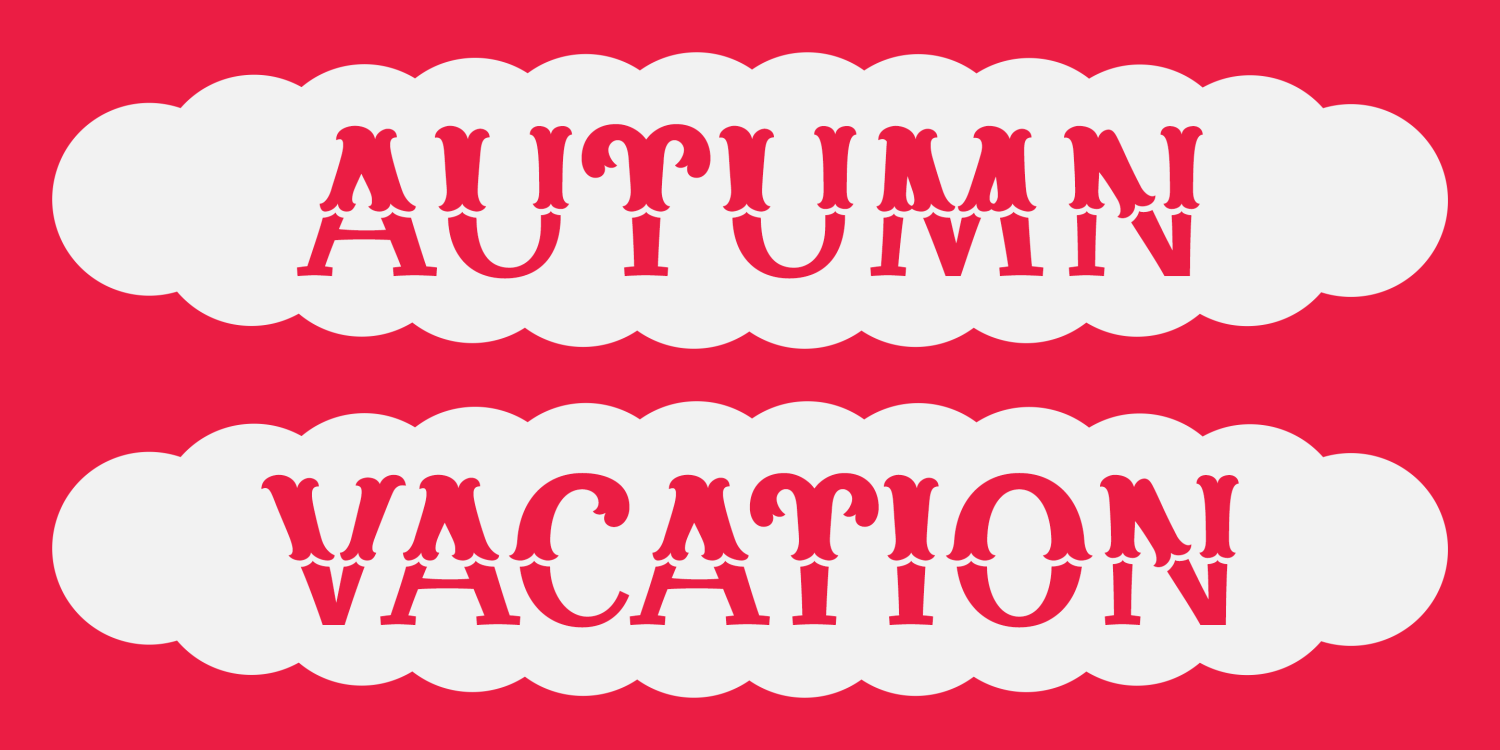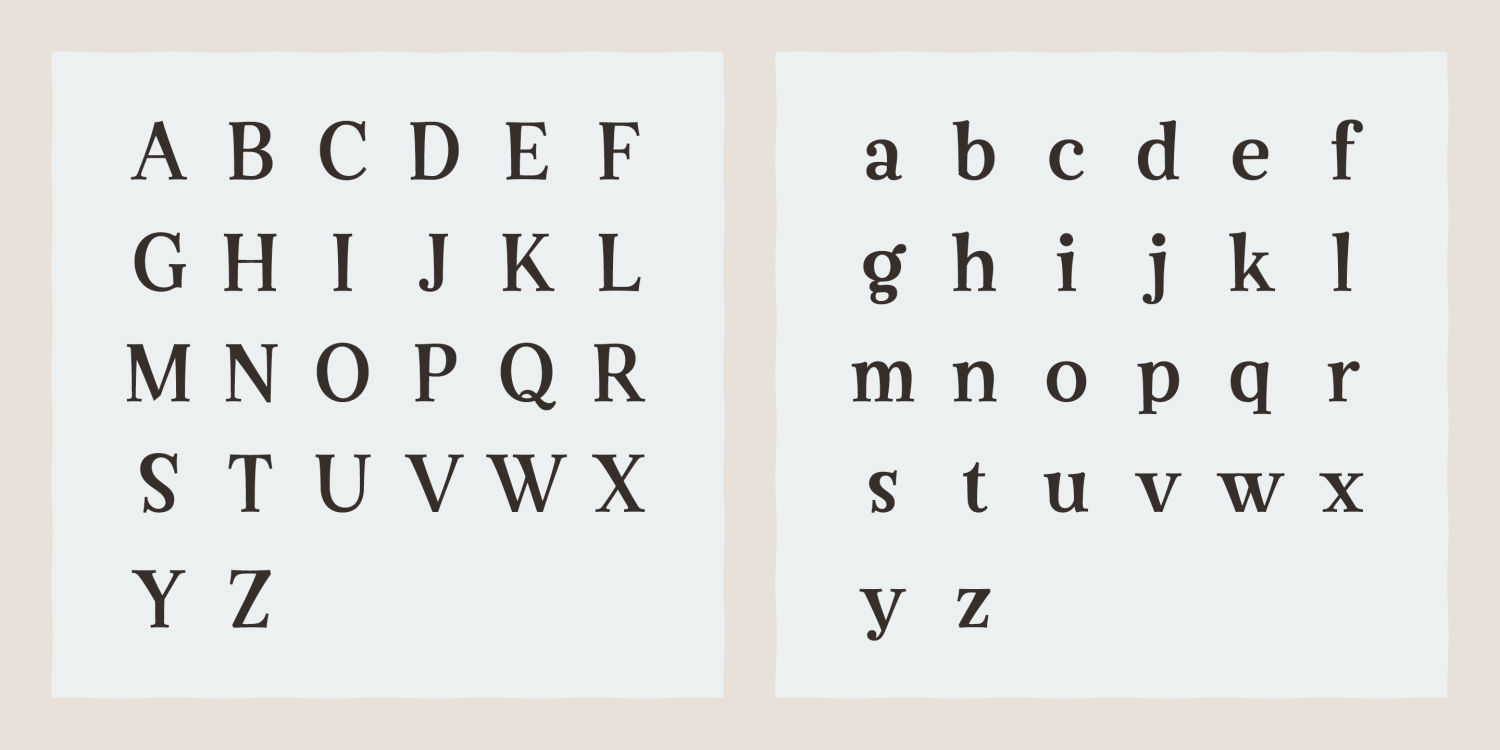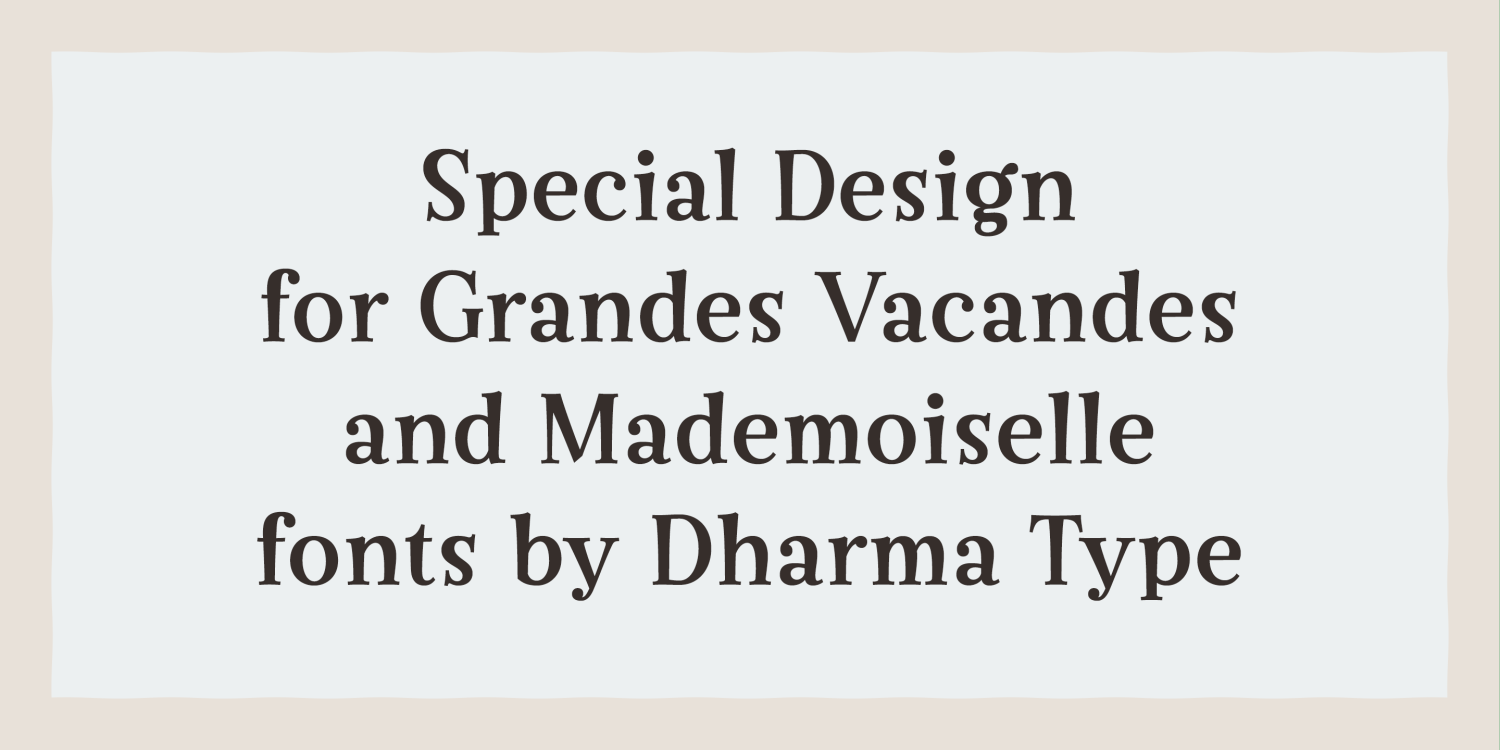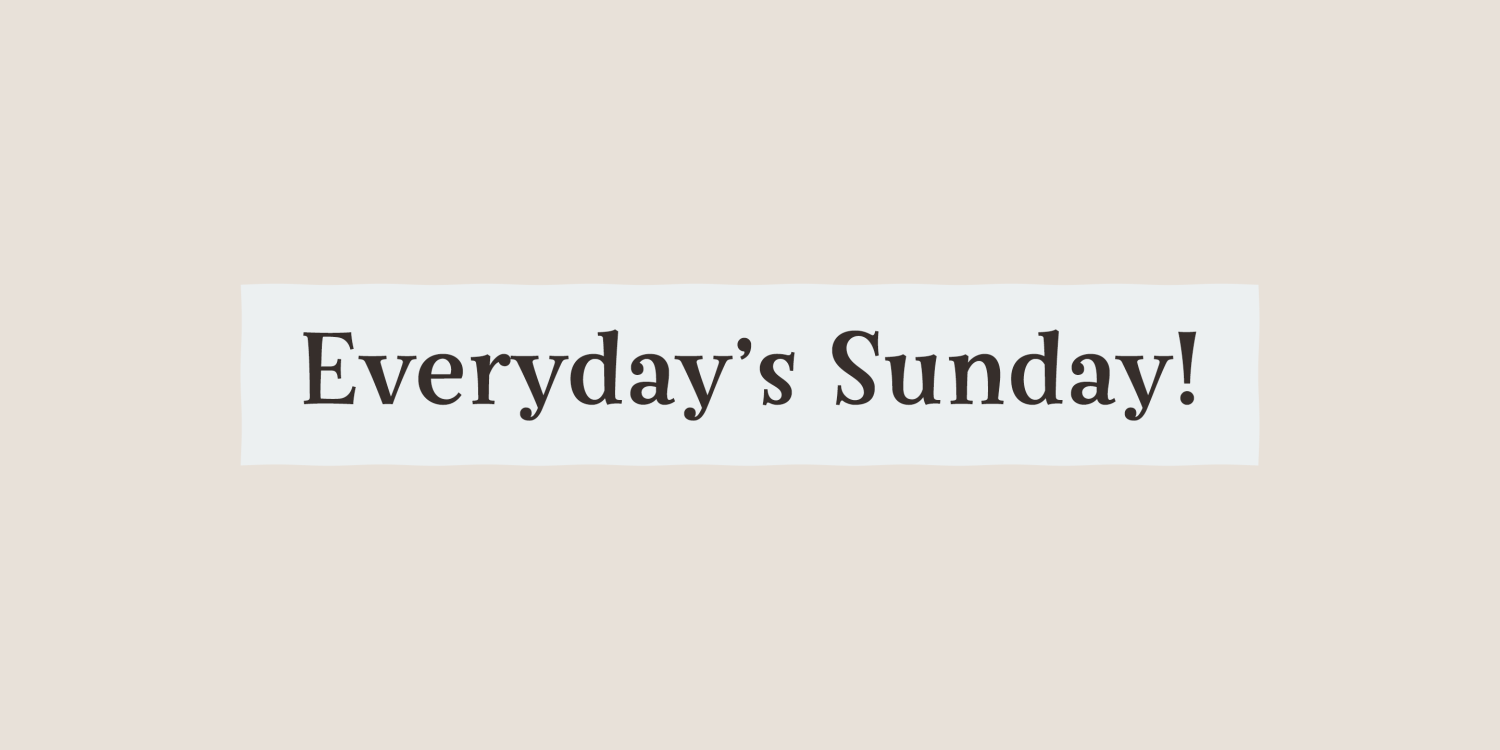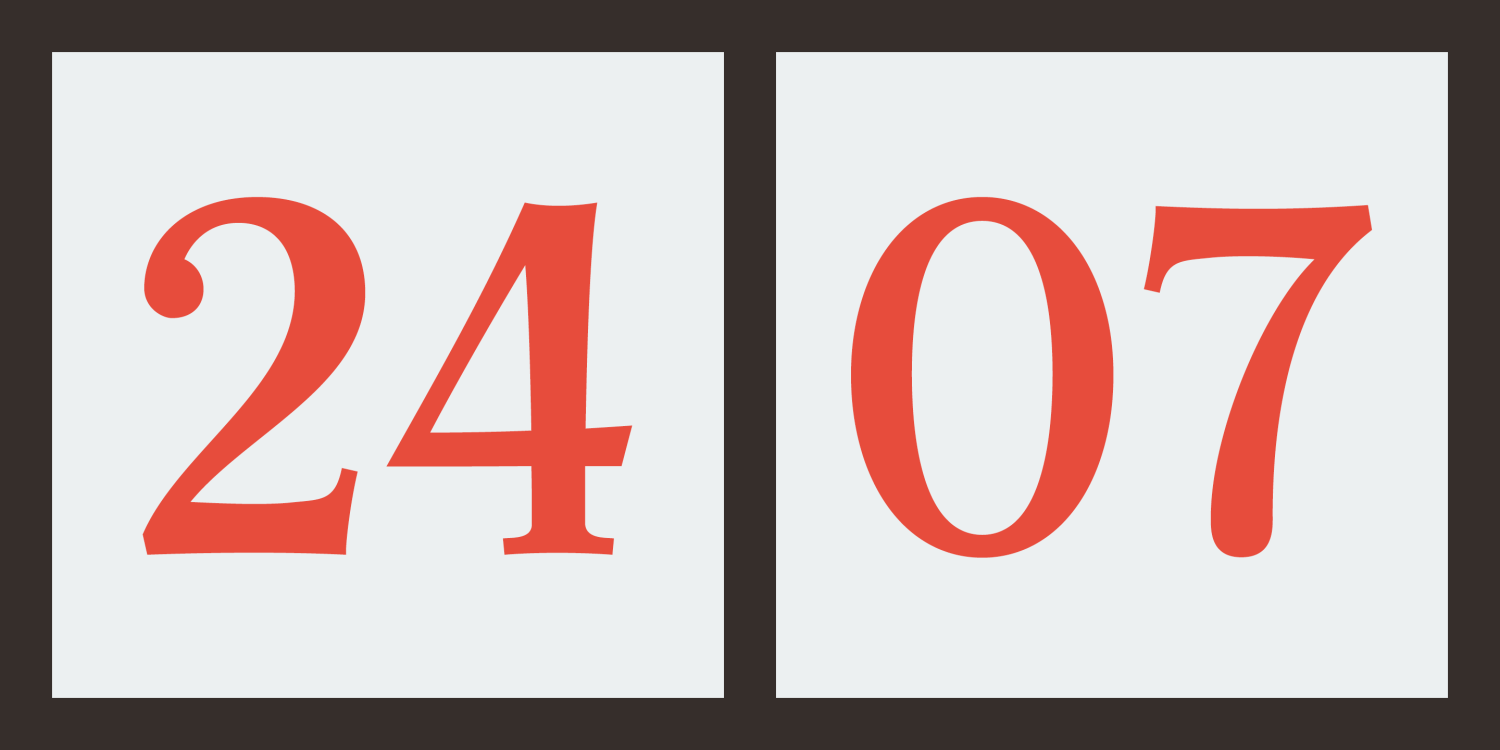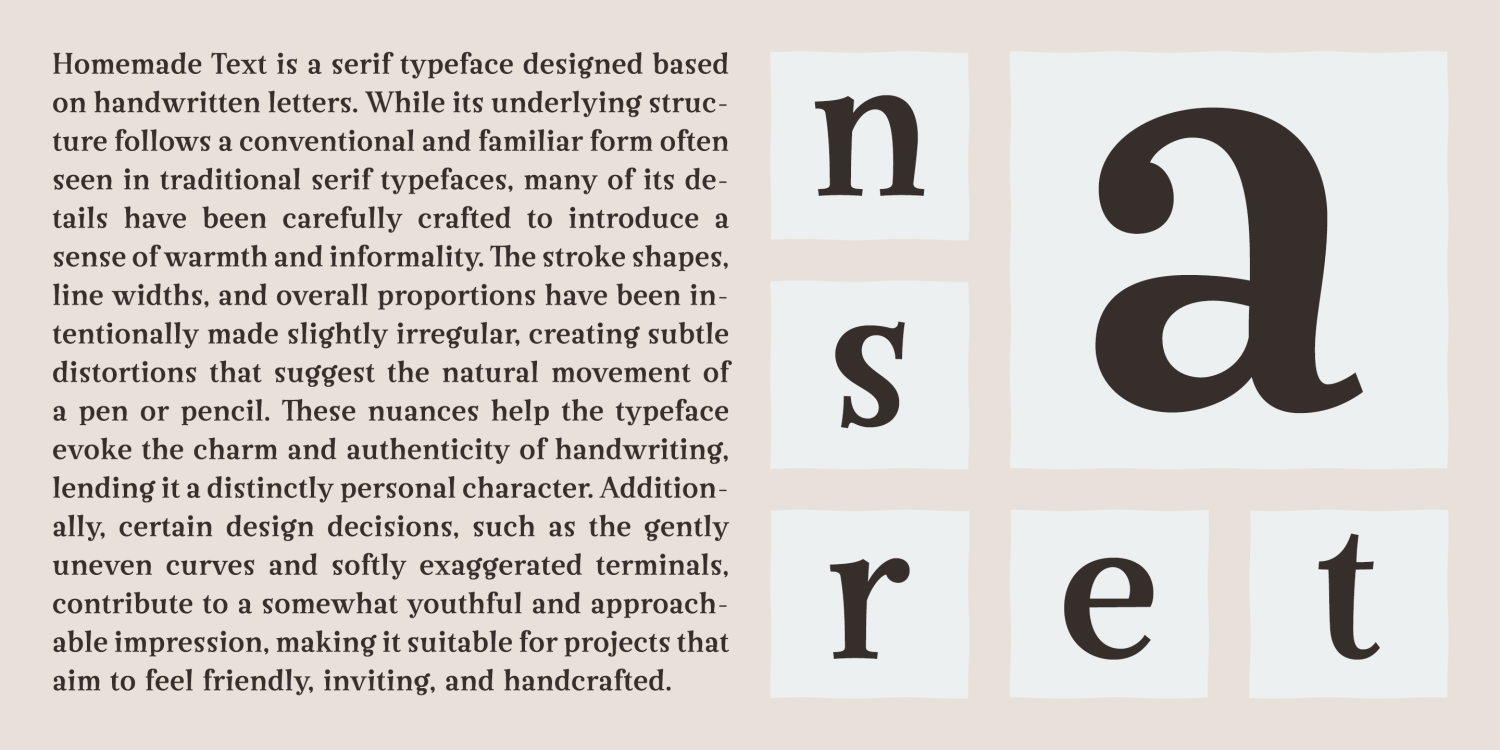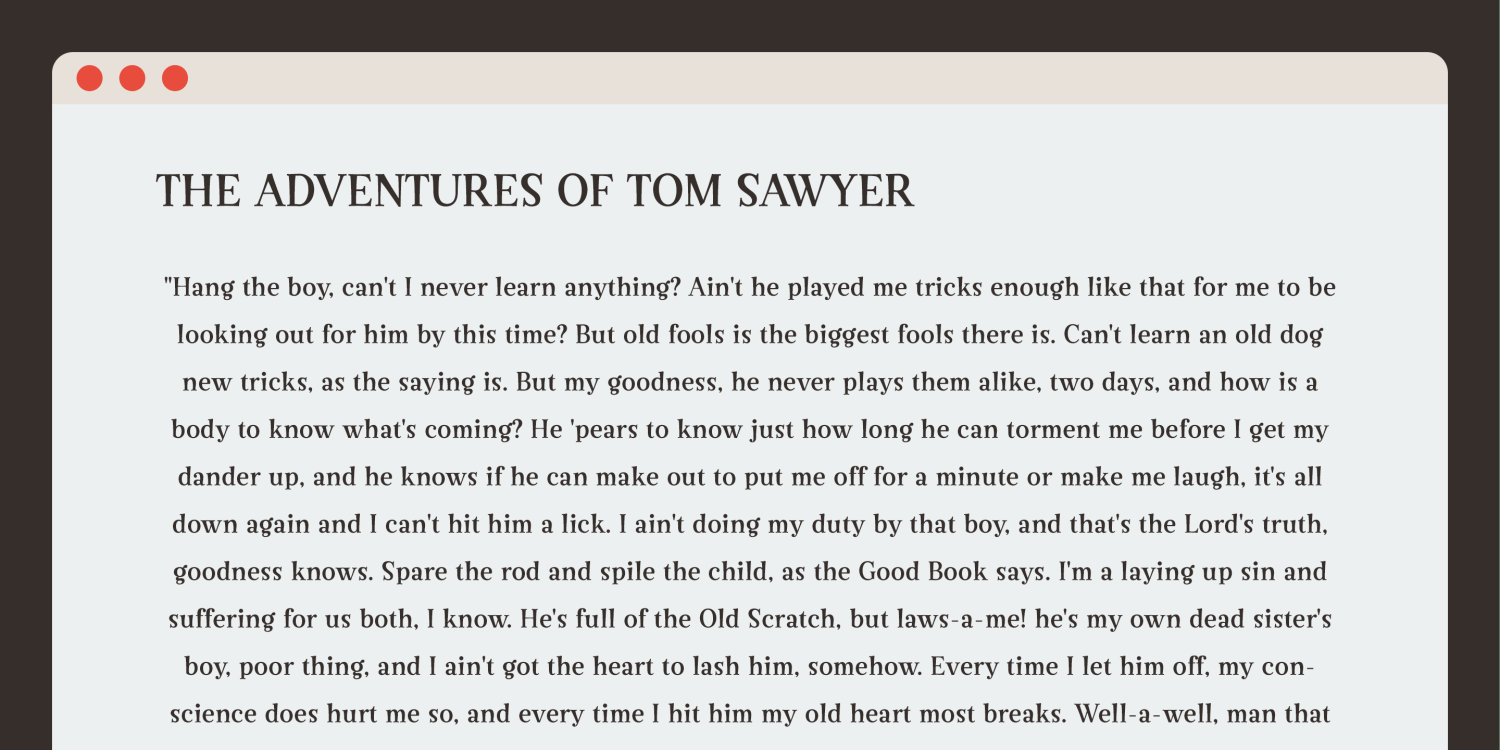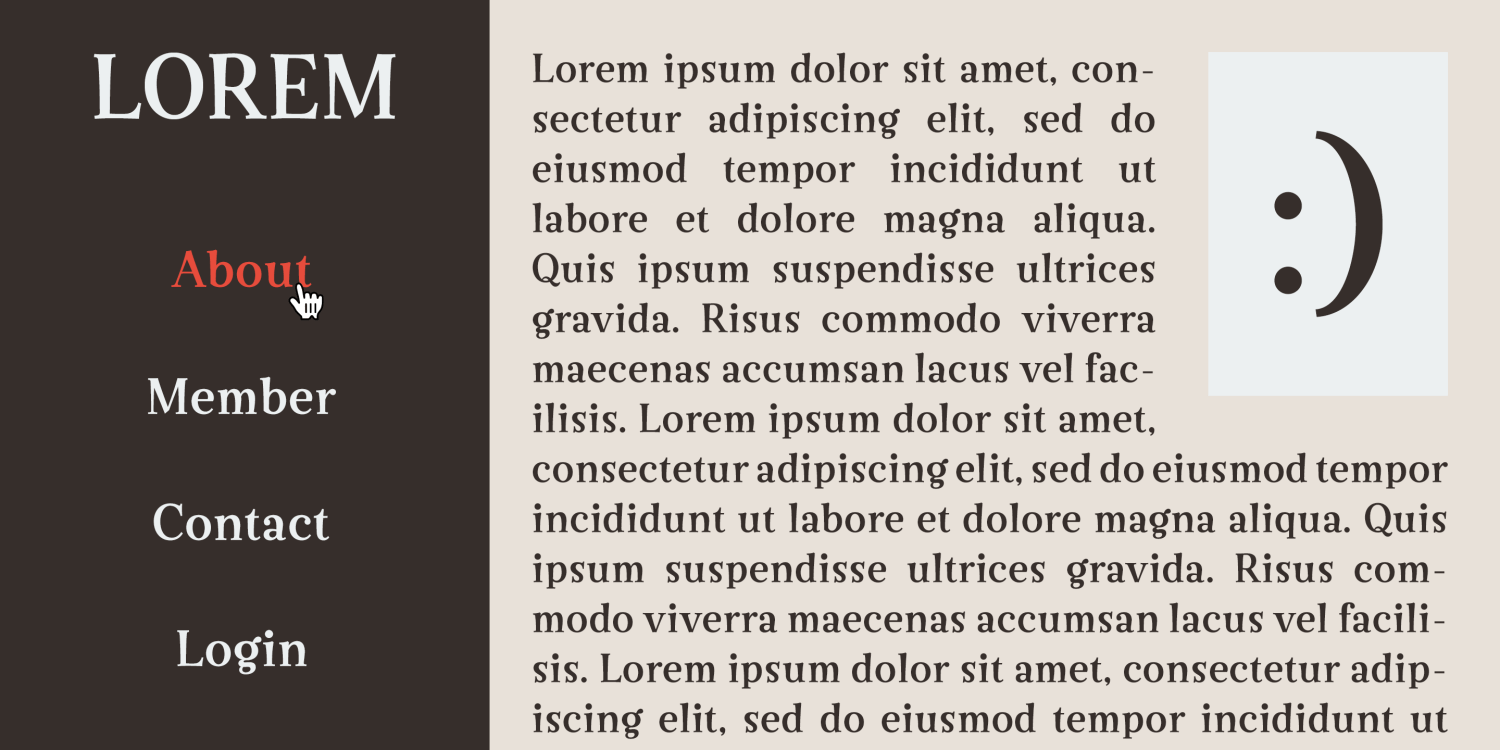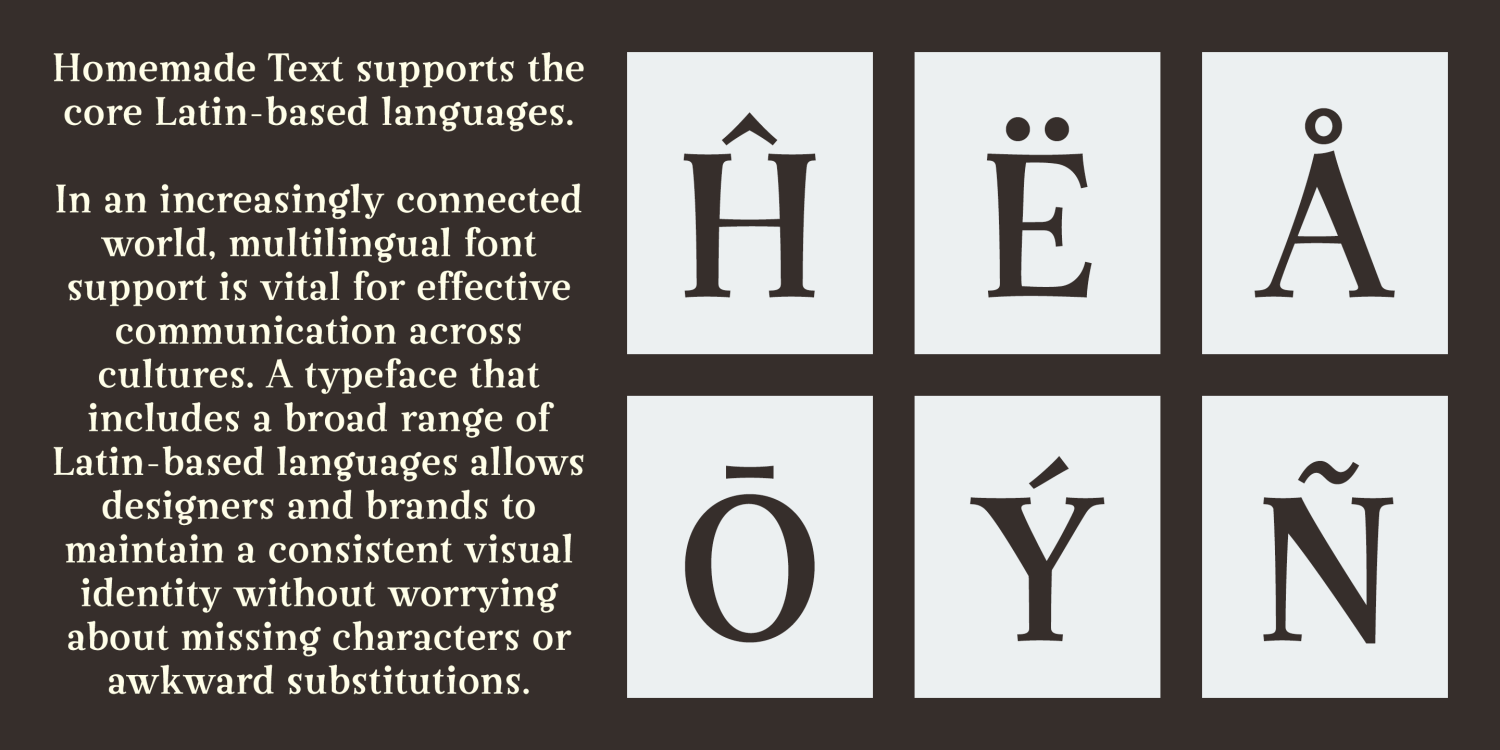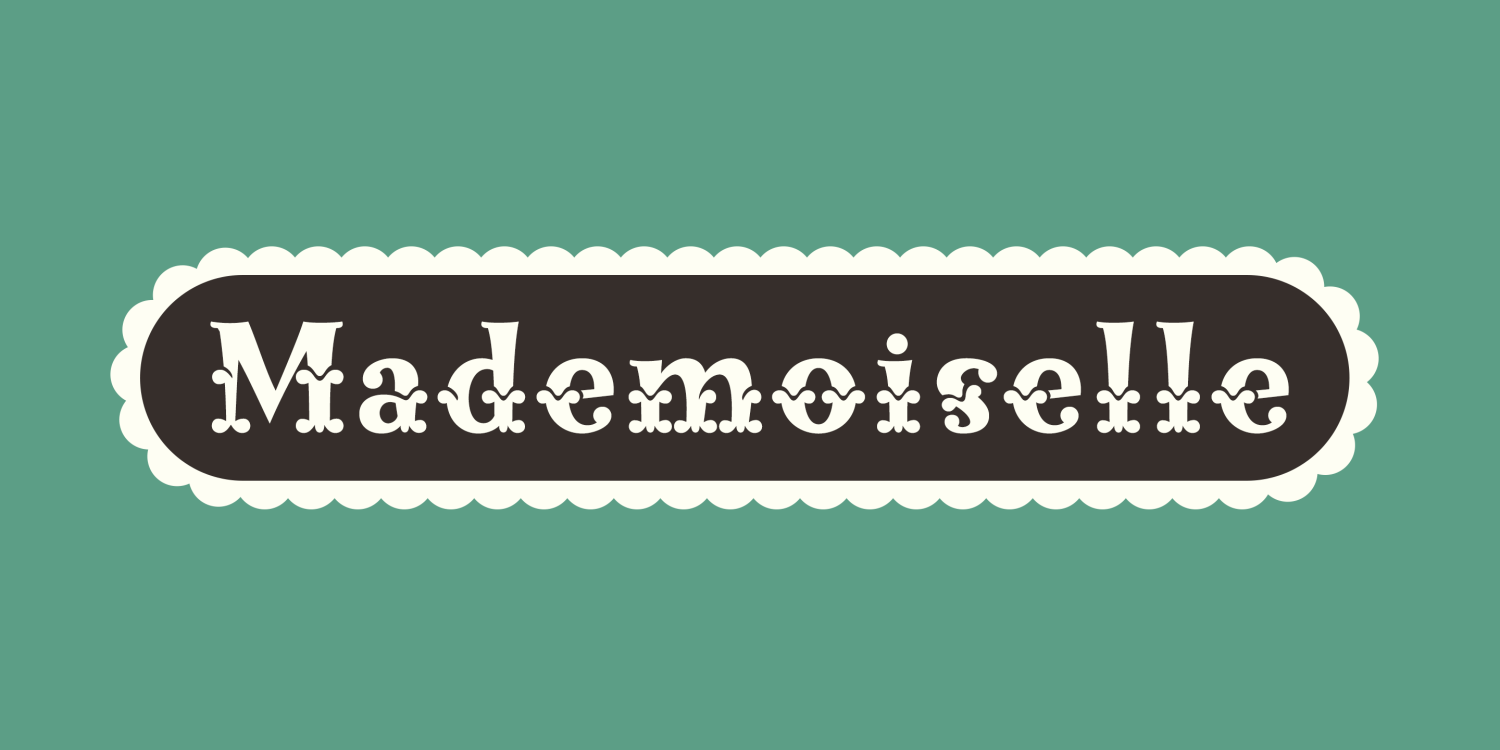
Mademoiselle, Grandes Vacances & Homemade Text
Font Family by Dharma Type
This wood type is the one of the most unique Wild West, Tuscan type. No other wood type or Tuscan decorative is more cute and sweeter than this family. Homemade Text font is ready for use in conjunction with this family.